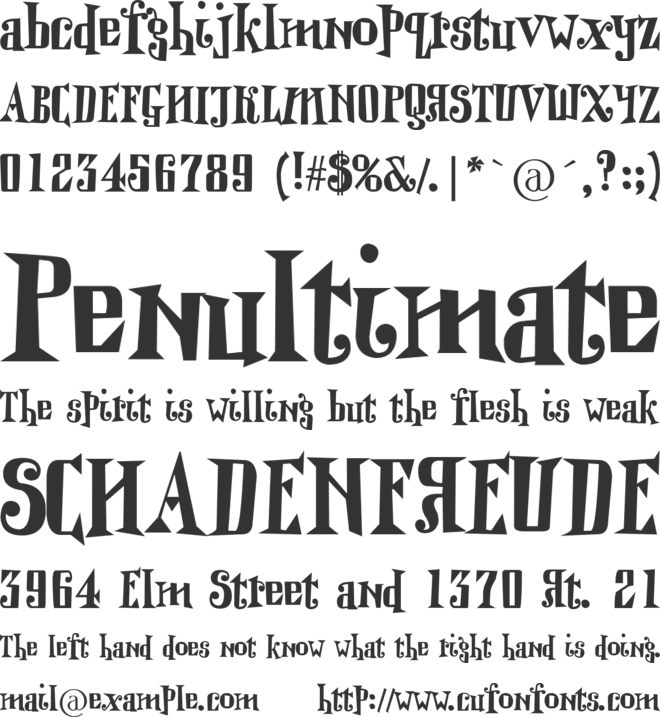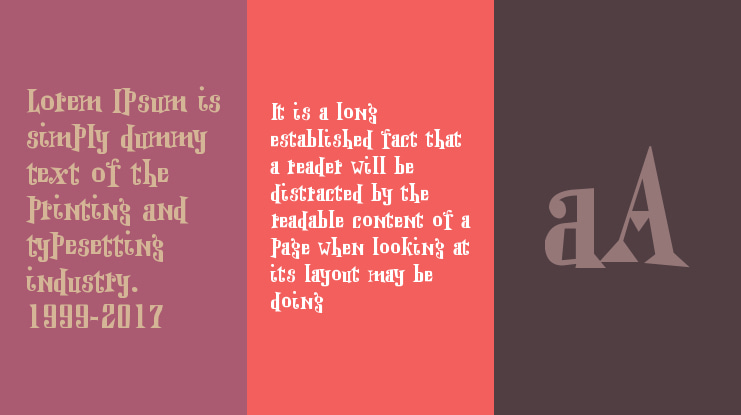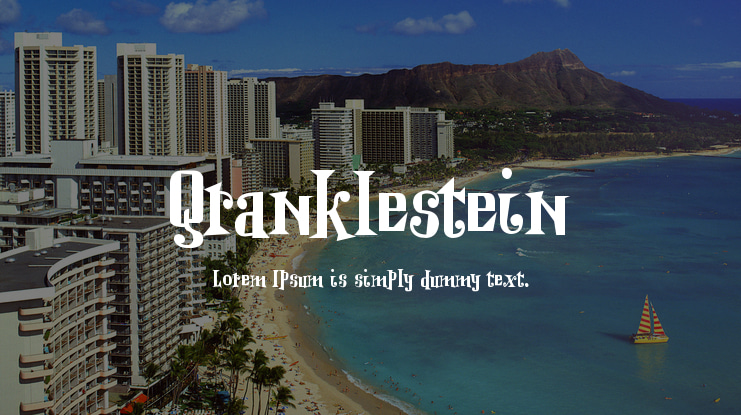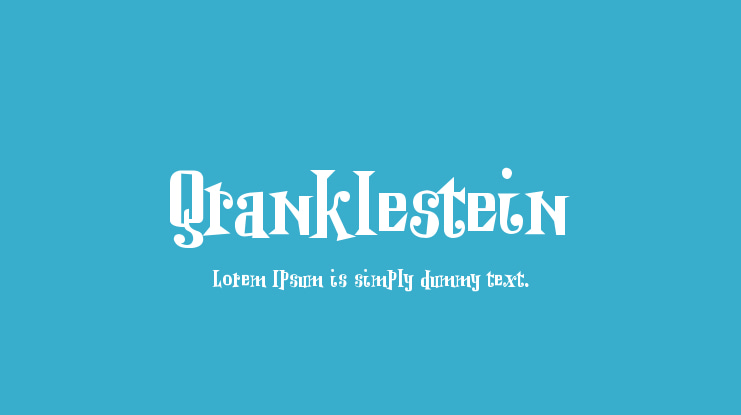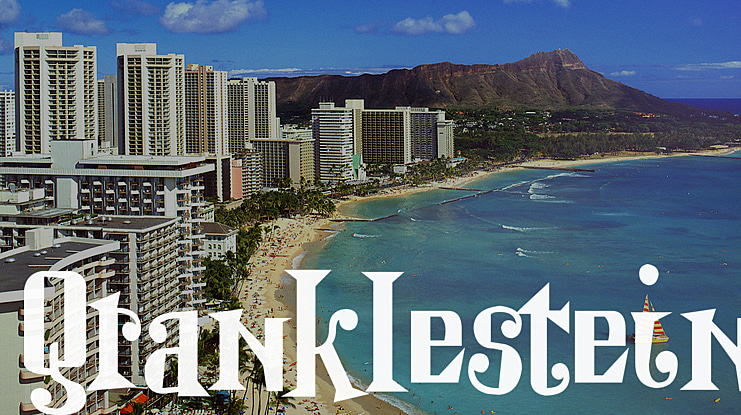
Qranklestein Font
Here's another fun font - I designed it as a font to be used for Chapter Headings in fairytales or kid's stories, and it could work well in the 'horror' genre?. It's based on the Cyrillic style of alphabet, but spiced up with several disobedient quirks.